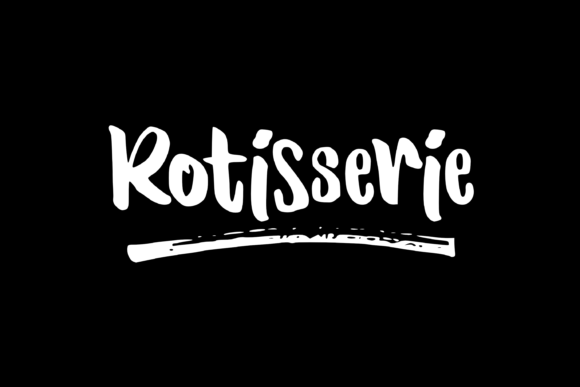
Immerse yourself in the raw energy and untamed spirit of Rotisseria, a captivating script font that embodies the essence of artistic freedom. Its bold strokes, reminiscent of a skilled calligrapher's hand, dance across the page with an untamed grace, evoking a sense of authenticity and artistry.
Picture your designs transformed, imbued with a touch of rugged charm, a hint of edginess, and an undeniable aura of creativity. Rotisseria's natural dry brushed texture adds a layer of depth and intrigue, making your words leap off the screen with a vibrancy that demands attention.
Unleash your imagination and explore the boundless possibilities that await with Rotisseria. Craft stunning posters that ignite the senses, captivating graphic designs that leave a lasting impression, and heartfelt greeting cards that convey your emotions with an unparalleled sincerity. From logos that exude authority to branding that radiates personality, Rotisseria elevates your designs to new heights, transforming them into works of art.
With Rotisseria, you're not just downloading a font; you're inviting a creative revolution into your design arsenal. Its PUA encoding opens up a world of glyphs and swashes, empowering you to effortlessly add intricate details and expressive flourishes to your projects. Unleash your inner artist and let your creativity run wild, knowing that Rotisseria will faithfully capture every stroke of your design genius.